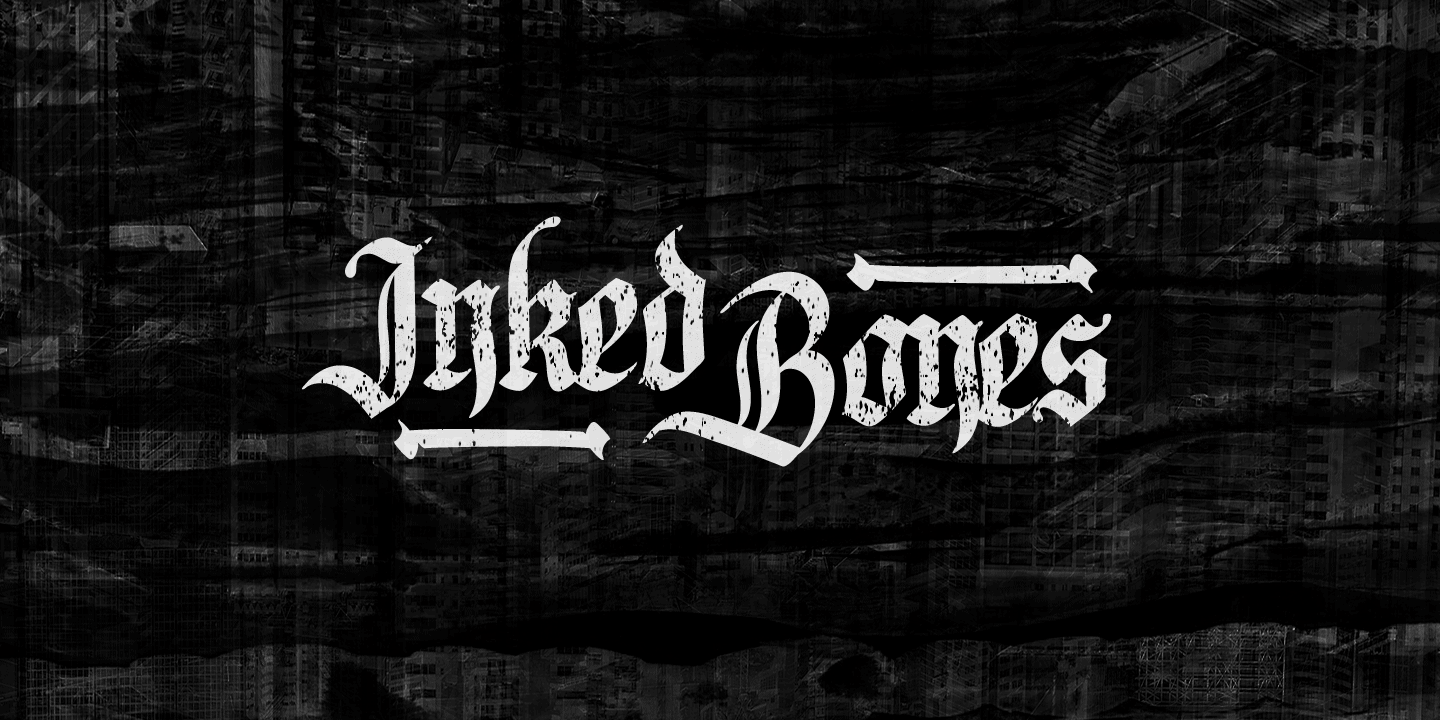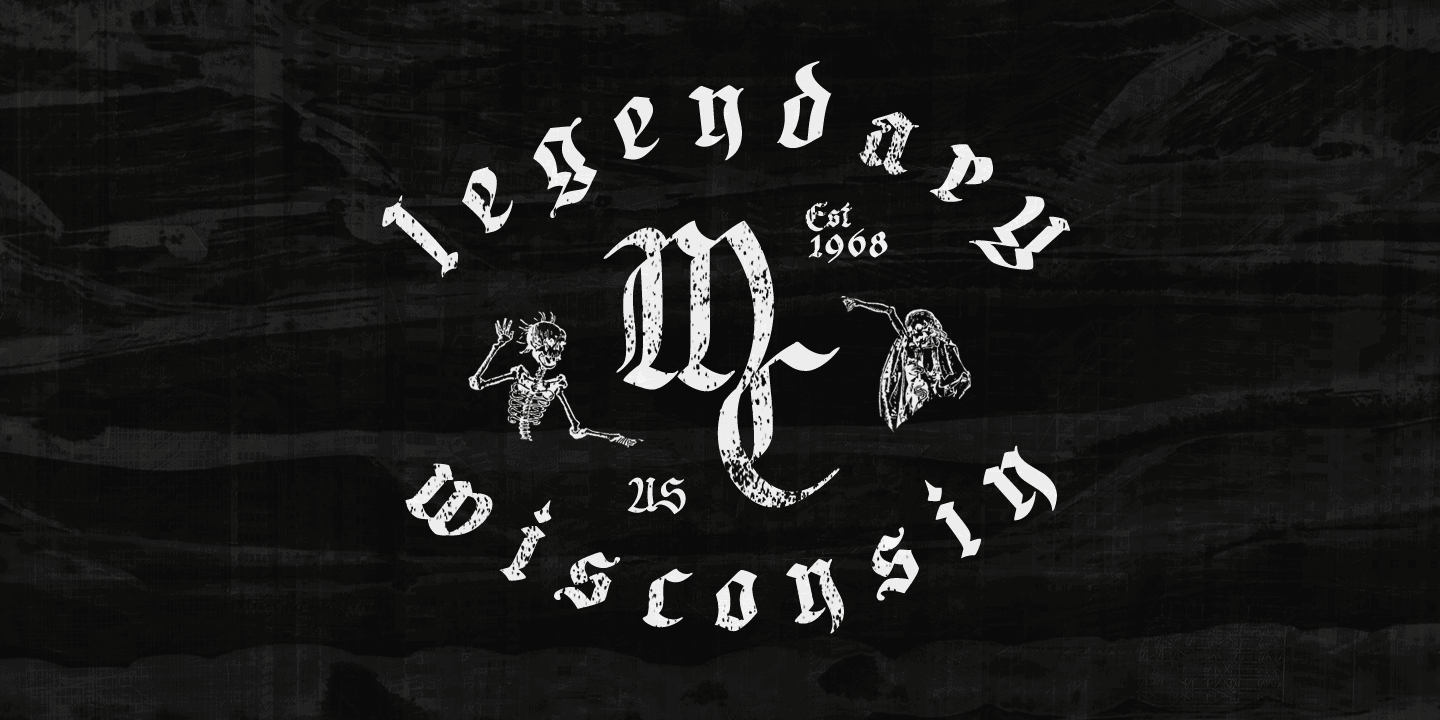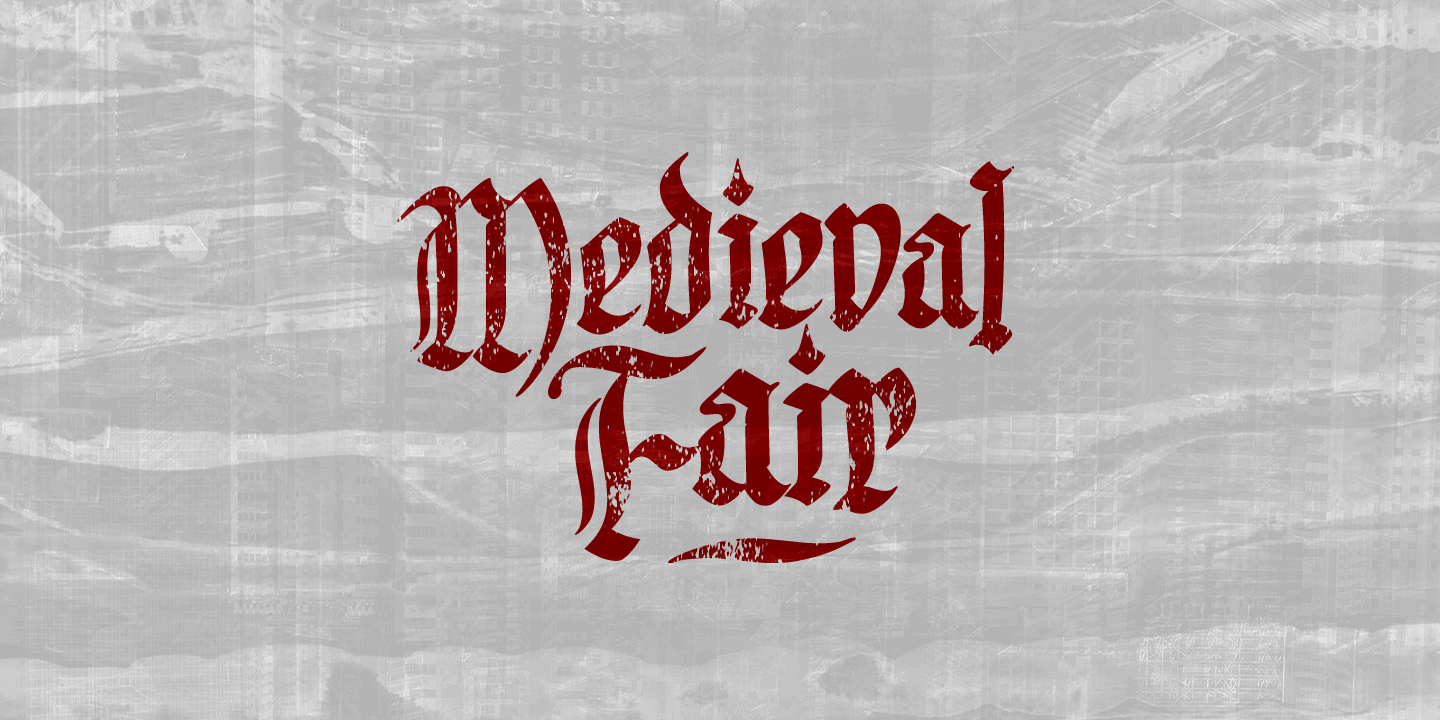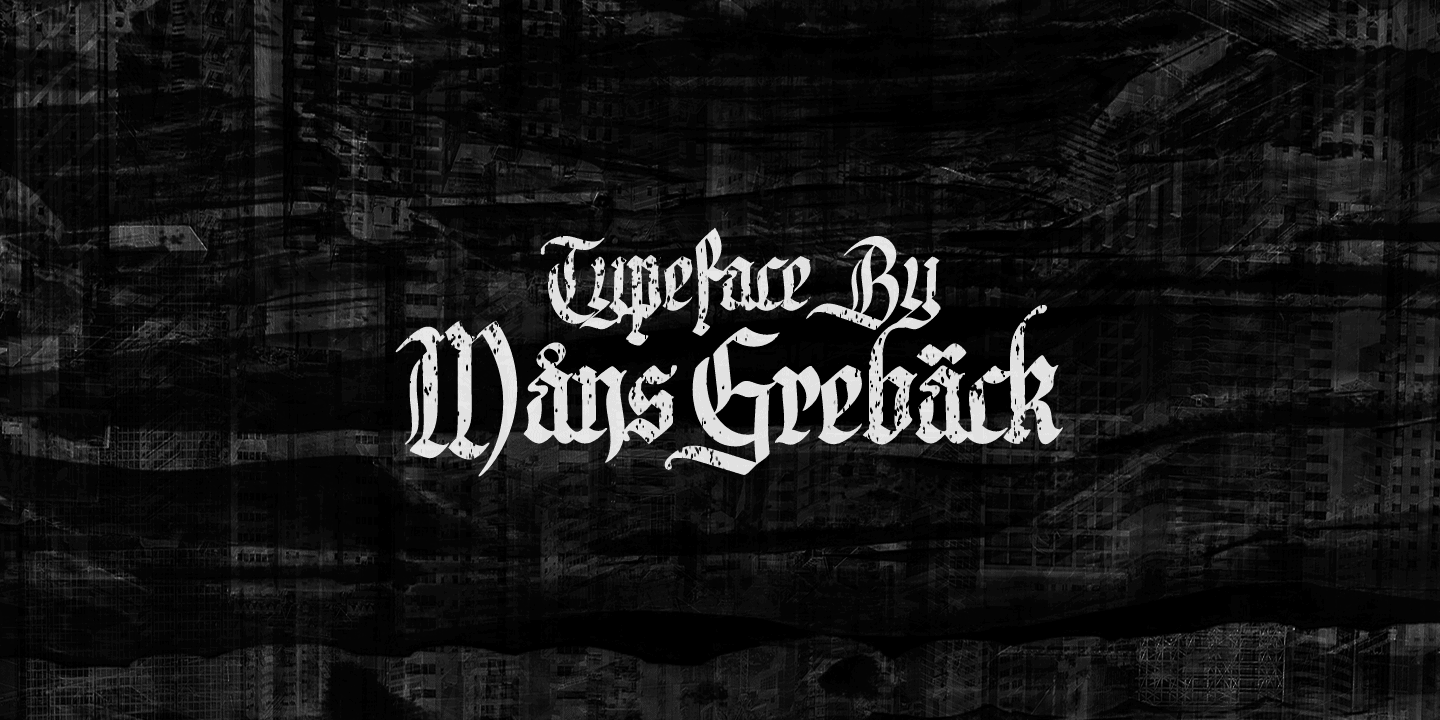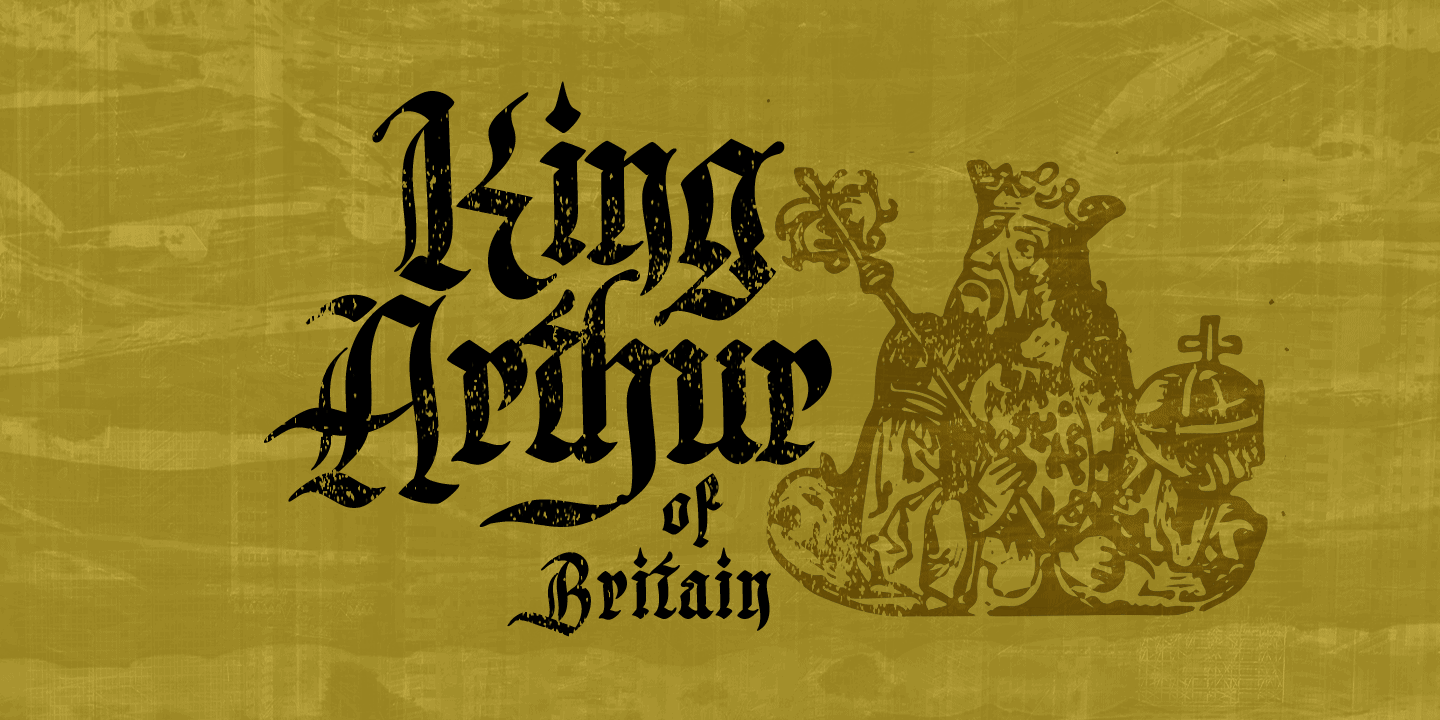
Inked Bones is a hand painted blackletter typeface, created by Måns Grebäck during 2019.
It works perfectly in medieval contexts as well as in modern Gothic style typesetting.
Use the typeface for a tattoo graphic or for your Middle Age project.
The font supports all Latin-based European languages, contains numbers and all symbols you’ll ever need.